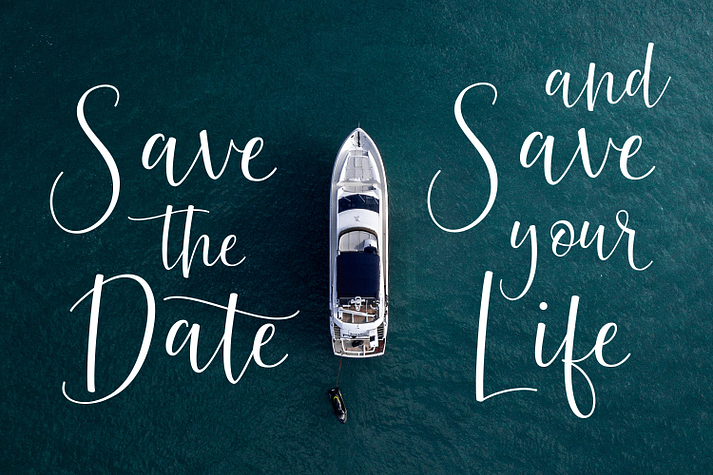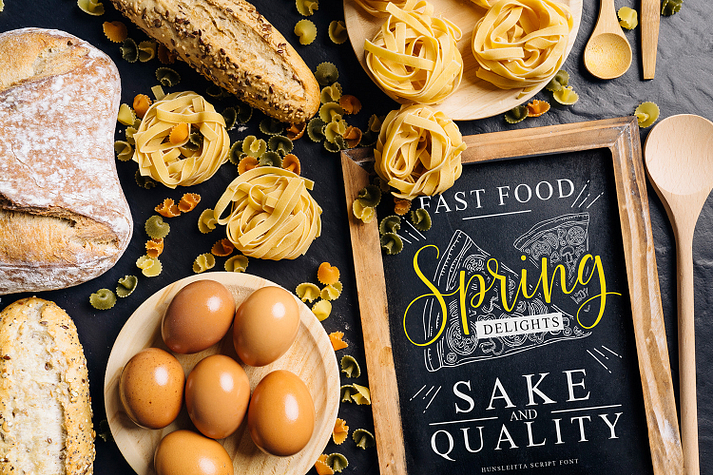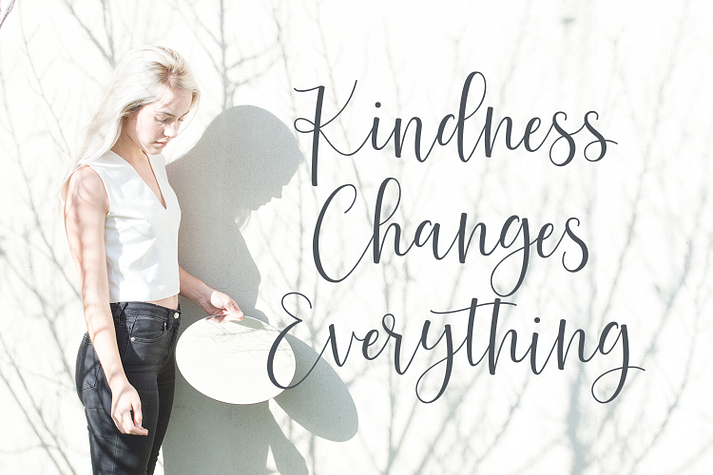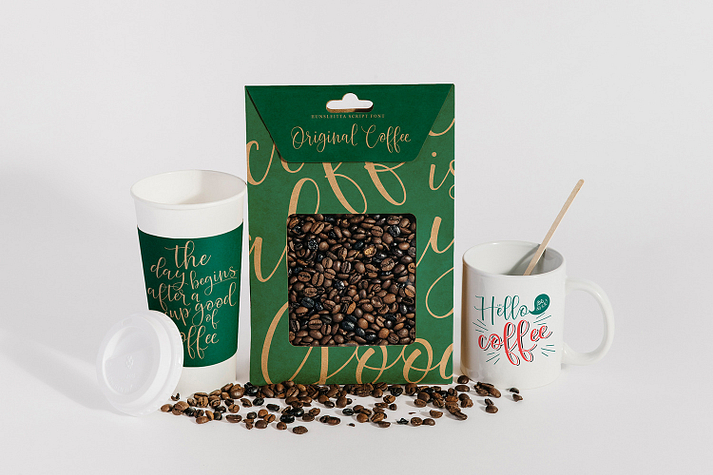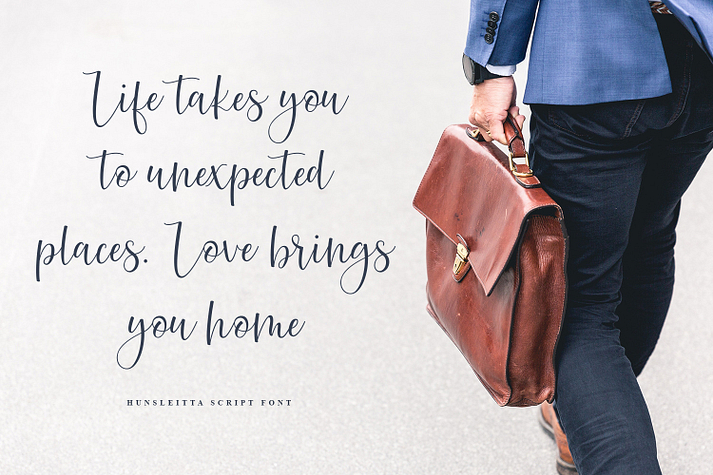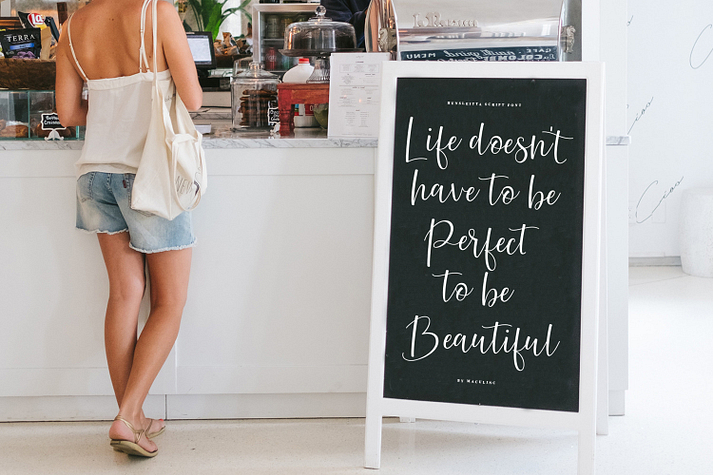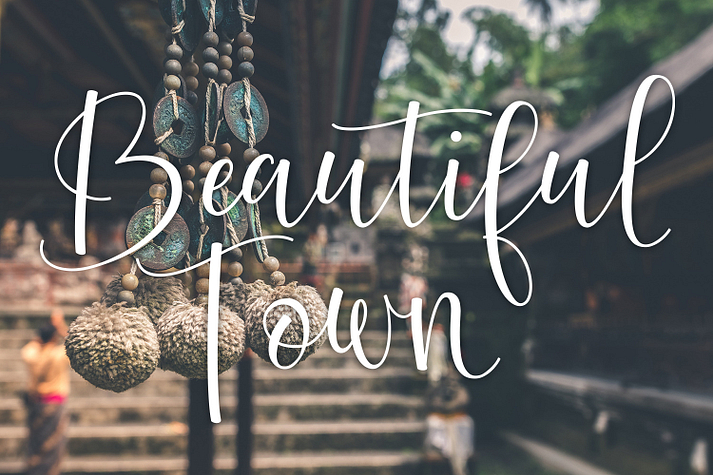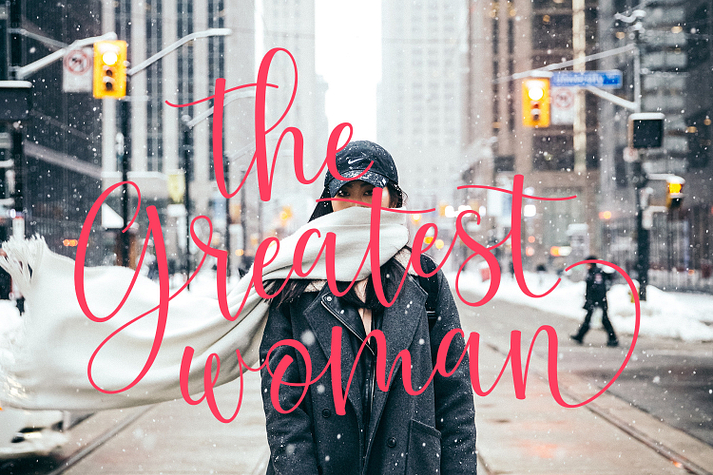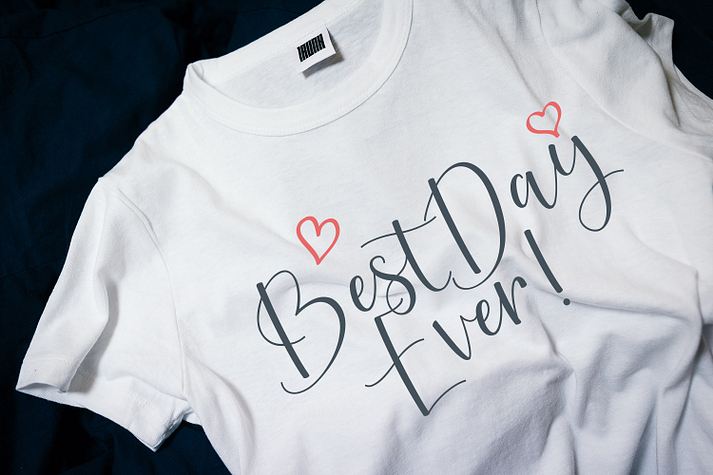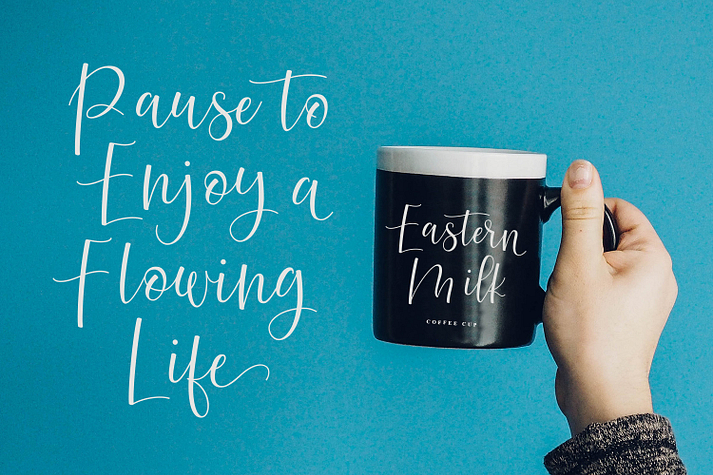
Hunsleitta
Hunsleitta is a font family. This typeface has eight styles and was published by Maculinc Type Foundry.
Introducing: Hunsleitta! is a typeface easy to read so comfortable to wear . Hunsleitta is perfect for branding projects, homeware designs, product packaging and you can use it as a logo, badge, insignia, packaging, headline, poster, t-shirt/apparel, greeting card, business card, and wedding invitation, or simply as a stylish text overlay to any background image and more. The flowing characters are ideal to make an attractive messages to your taste.
Hunsleitta is a combination of all the letters that are available to you by manually adding or copying the style of letters. And if you want to make it easier to replace by changing the name of the letter, you can use Hunsleitta One, Hunsleitta Two, Hunsleitta Three and Four alternatives that I have separated.
If you want to make the letters easy to make in one style, just choose from one of these fonts.
1. Hunsleitta One! This is a first version, with a completely set of both lower and uppercase characters.
2. Hunsleitta Two! This is a second version, with a completely new set of both lower and uppercase characters. If you wanted to avoid letters looking the same each time to recreate a custom-made style, or try a different word shape, simply switch to this font for an additional layout option.
3. Hunsleitta Three! And this is the third version, with this set of lowercase and uppercase characters slightly different from the previous font. This time I changed it by reducing the paste side between fonts so that the font is somewhat separate.
And also applies to four alternatives that have been provided separately, to add beauty in combining a word or sentence. And hopefully it can help you well.
Ligatures • Are also available for several lowercase characters (double-letters which flow more naturally). These are only accessible via software with opentype capability or a glyphs panel, e.g. Photoshop/Illustrator.